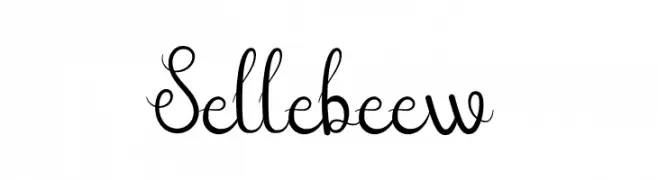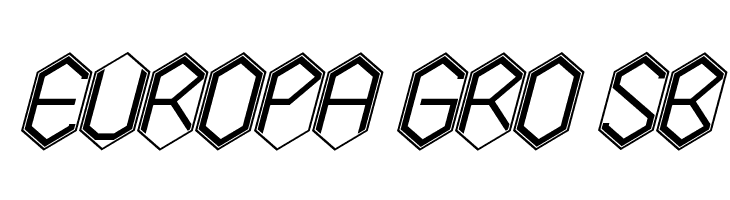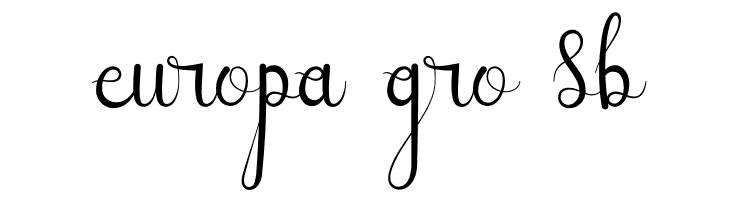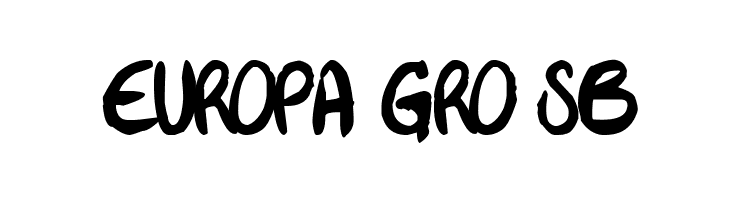
A versatile font combining clean uppercase letters with playful, handwritten lowercase characters.
A lively and elegant script font with flowing, cursive letterforms.
A bold, hexagonal font with a futuristic and geometric design.
A font inspired by ancient Greek inscriptions with angular, geometric letterforms.
A vibrant, brush-style font with a dynamic and artistic flair.
A playful, rounded font with smooth curves and a friendly appearance.
A bold, expressive script font with decorative swirls and high contrast.
A bold, dynamic script font with calligraphic influences and fluid strokes.
An elegant, flowing script font with intricate loops and swirls.
A bold, expressive handwritten font with brush-like strokes and dynamic forms.